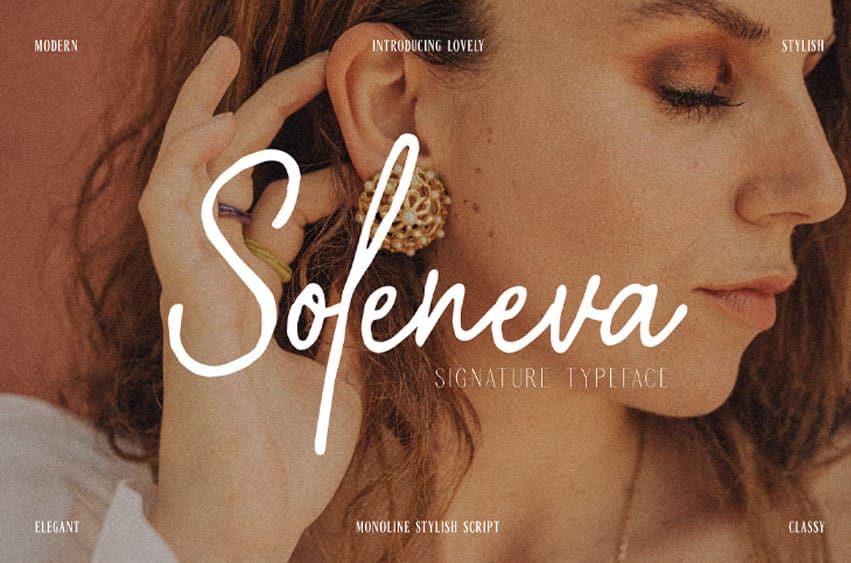
Soleneva Font is a modern signature-style monoline script font with a soft, flowing look. Crafted to bring an elegant, handwritten touch to your design projects, it’s perfect for logos, branding, social media graphics, wedding invitations, and editorial layouts.
- Ligatures for a natural writing flow
- Smooth monoline consistency
- Feminine branding & fashion identity
- Instagram quotes & social templates
- Wedding stationery & greeting cards
- Beauty packaging & product labels
- Editorial & lifestyle design projects